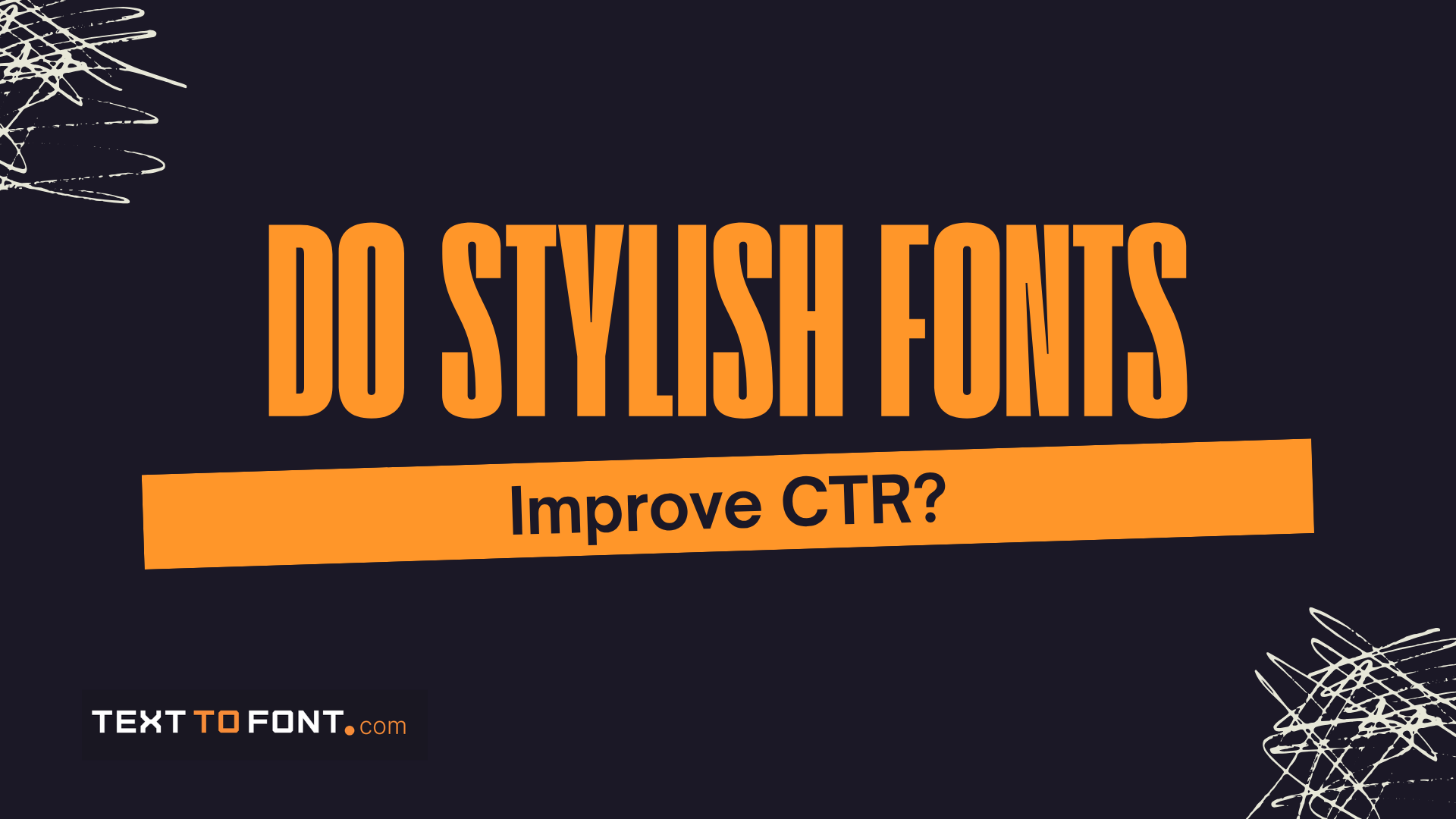
Click-through rate (CTR) is a key metric for measuring how many people engage with your content, ads, or emails. Many factors influence CTR, including design elements like layout, colors, and fonts. Fonts are more than just text styles because they affect readability, perception, and how users respond to your content.
Choosing the right font can make information easier to read and more appealing, which may encourage clicks. In this article, we will explore whether using stylish fonts can actually improve CTR and how font choices impact user behavior.
Stylish fonts are text styles that go beyond standard, plain fonts. They include variations like italics, bold, gothic, script, and modern fonts. Some stylish fonts also use symbols, special characters, or emojis to make the text stand out.
These fonts are often used in headings, social media posts, or advertisements to grab attention and make content look unique. While they can make text more eye-catching, it is important to use them carefully so that the content remains readable and does not confuse the audience.
Stylish fonts can influence how users perceive and interact with your content. Using different styles like italics, gothic, or fonts with symbols and emojis can make your text more noticeable and appealing. However, the impact on click-through rate (CTR) depends on how and where the fonts are used.
Stylish fonts can help grab attention in headlines, call-to-action buttons, or social media posts. They work best when they highlight important information and create a visual hierarchy that guides readers.
Fonts that match the tone of your brand and content can also make users more likely to engage and click.
If the fonts are overused, difficult to read, or clash with the overall design, they may have little to no effect on CTR.
In these cases, users may ignore the styling and focus solely on the message. Even simple, clear fonts often perform just as well, especially when readability and clarity are more important than decorative style.
Using stylish fonts effectively requires balancing attention-grabbing design with readability. When done right, fonts can highlight key information, enhance the visual appeal of content, and encourage users to click. Here are some strategies for using stylish fonts without harming CTR:
Even stylish fonts should be legible. Avoid overly complex or decorative styles for body text, and save them for headings or short phrases. Clear fonts help users understand your message quickly, which increases the likelihood of clicks.
Too many font styles on one page can be overwhelming. Limit the use of special fonts to headlines, call-to-action buttons, or important phrases. This draws attention without creating visual clutter or confusion.
The style of your font should reflect the tone and personality of your brand. For example, playful fonts may work for casual social media posts, while modern or clean fonts suit professional content. Consistency reinforces brand identity and builds trust.
A/B testing different fonts can reveal what improves CTR for your audience. Try variations in headings, buttons, or social posts, and track clicks to identify which styles perform best. Data-driven decisions are more effective than guessing.
Using Text to Font helps you experiment with different styles and find the ones that grab attention and engage your audience most effectively.
Using stylish fonts effectively requires balancing creativity with readability. Following these best practices can help you make your text appealing without hurting user experience or CTR:
Prioritize readability: Use stylish fonts mainly for headings or short phrases, not for long paragraphs.
Limit the number of font styles: Stick to 1–2 different fonts per page to avoid visual clutter.
Match the font to your content and brand: Choose styles that reflect the tone and personality of your message.
Use contrast wisely: Ensure stylish fonts stand out against the background but remain easy to read.
Test before finalizing: Experiment with different fonts and monitor performance to see what resonates with your audience.
Stylish fonts can make your content more engaging and visually appealing, which may help improve CTR when used thoughtfully. They are most effective in headings, call-to-action buttons, and short, attention-grabbing text. However, readability and consistency should always come first. By choosing the right styles, using them sparingly, and testing what works, you can create text that attracts clicks while maintaining a clear, professional, and user-friendly experience.
You can run A/B tests by trying different fonts in your headlines or buttons. Track metrics like clicks and engagement to see what performs best.